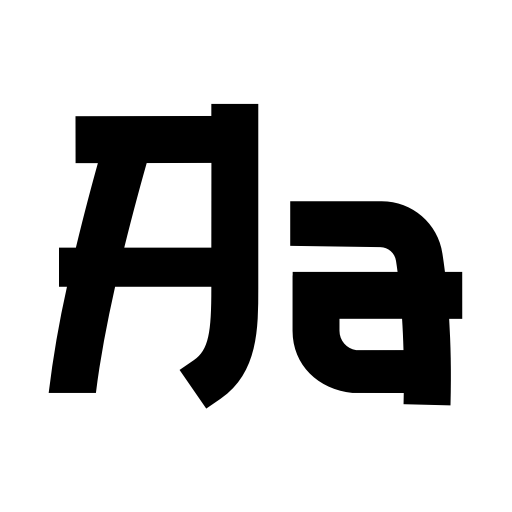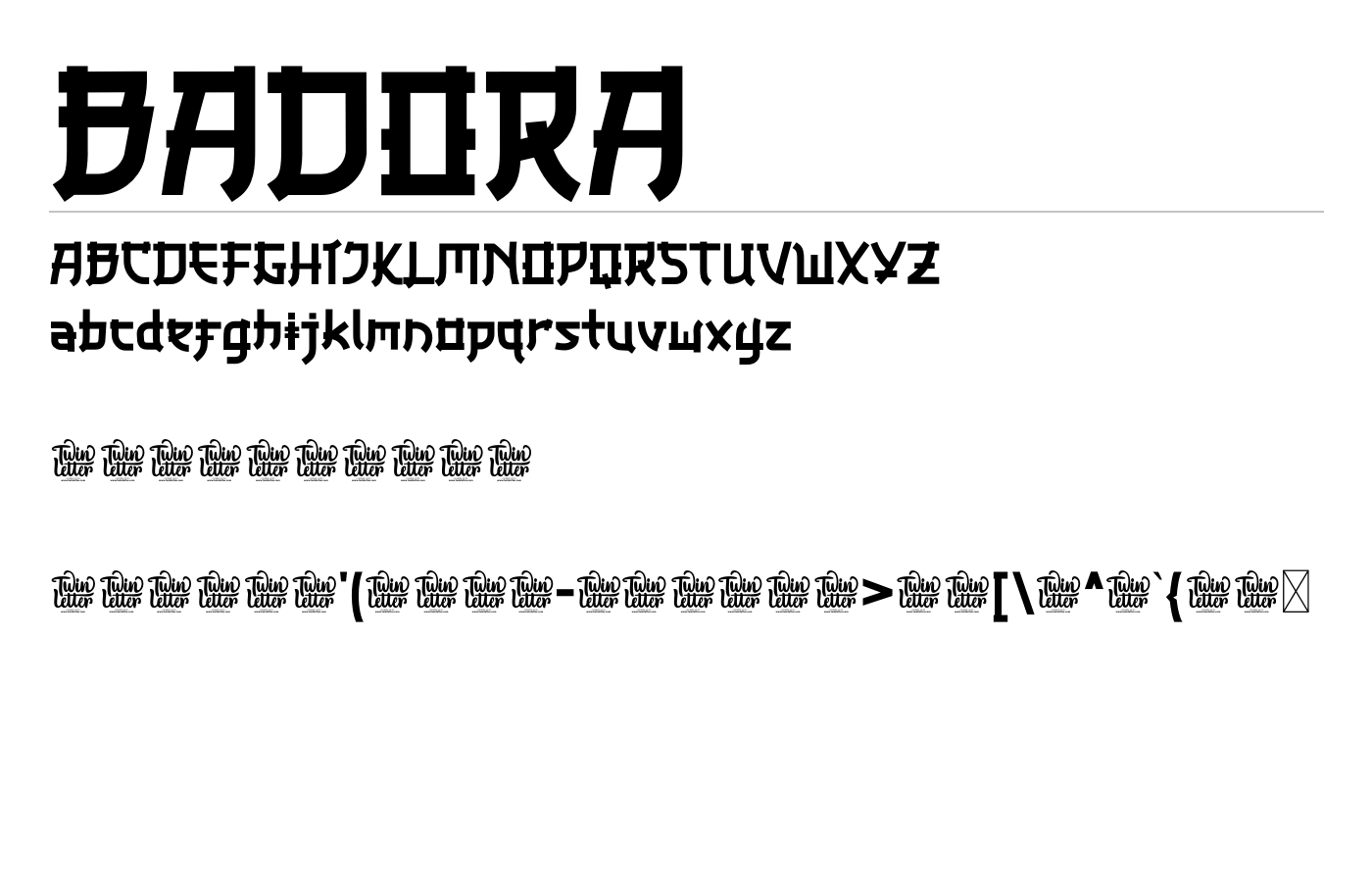
BADORA is a bold, condensed sans-serif font with a strong, angular character that blends modern geometric forms with sharp, stylized edges. Its distinct letter shapes and high-impact presence make it well-suited for eye-catching headlines, logos, and branding where a unique, dramatic statement is desired. This font works especially well for creative projects looking to convey strength, innovation, and a contemporary, edgy vibe.
BADORA Font
About BADORA Font
| Designer | ZIYAD |